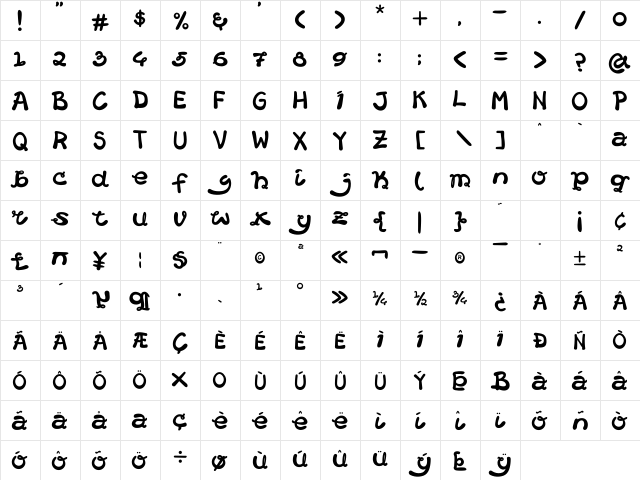
HelloCatround Regular
Design Context for HelloCatround Typeface
HelloCatround softens its letterforms with rounded terminals, giving it an approachable, friendly quality that works well in consumer-facing and digital contexts.
Well-suited to UI design, mobile interfaces, and any brand that wants approachability without sacrificing clarity.
Font Pairing: Pairs well with a rounded or humanist sans for body copy, maintaining the friendly tone without relying on HelloCatround to carry extended reading.
Pro Tip: Use HelloCatround for UI elements, app interfaces, and anywhere a friendly, approachable tone needs to be maintained without sacrificing clarity.